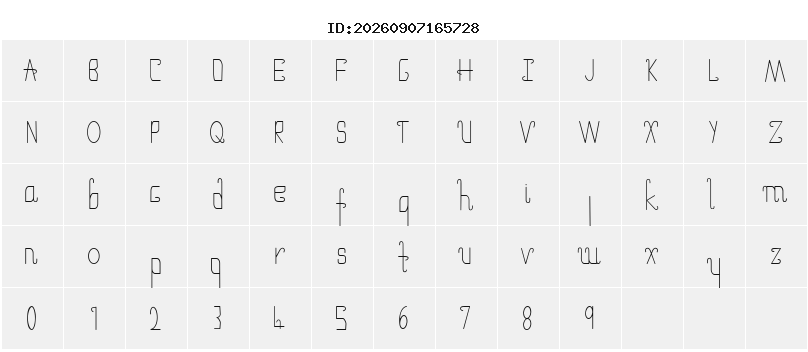
• Font Name: Umbrella
• Font Style: Thin
• Full Font Name: Umbrella Thin
• Manufacturer: Apurva
About Umbrella.ttf
Umbrella.ttf is a modern, elegant sans-serif font designed for ultimate readability and visual harmony. Perfect for branding, headlines, web design, and print materials.